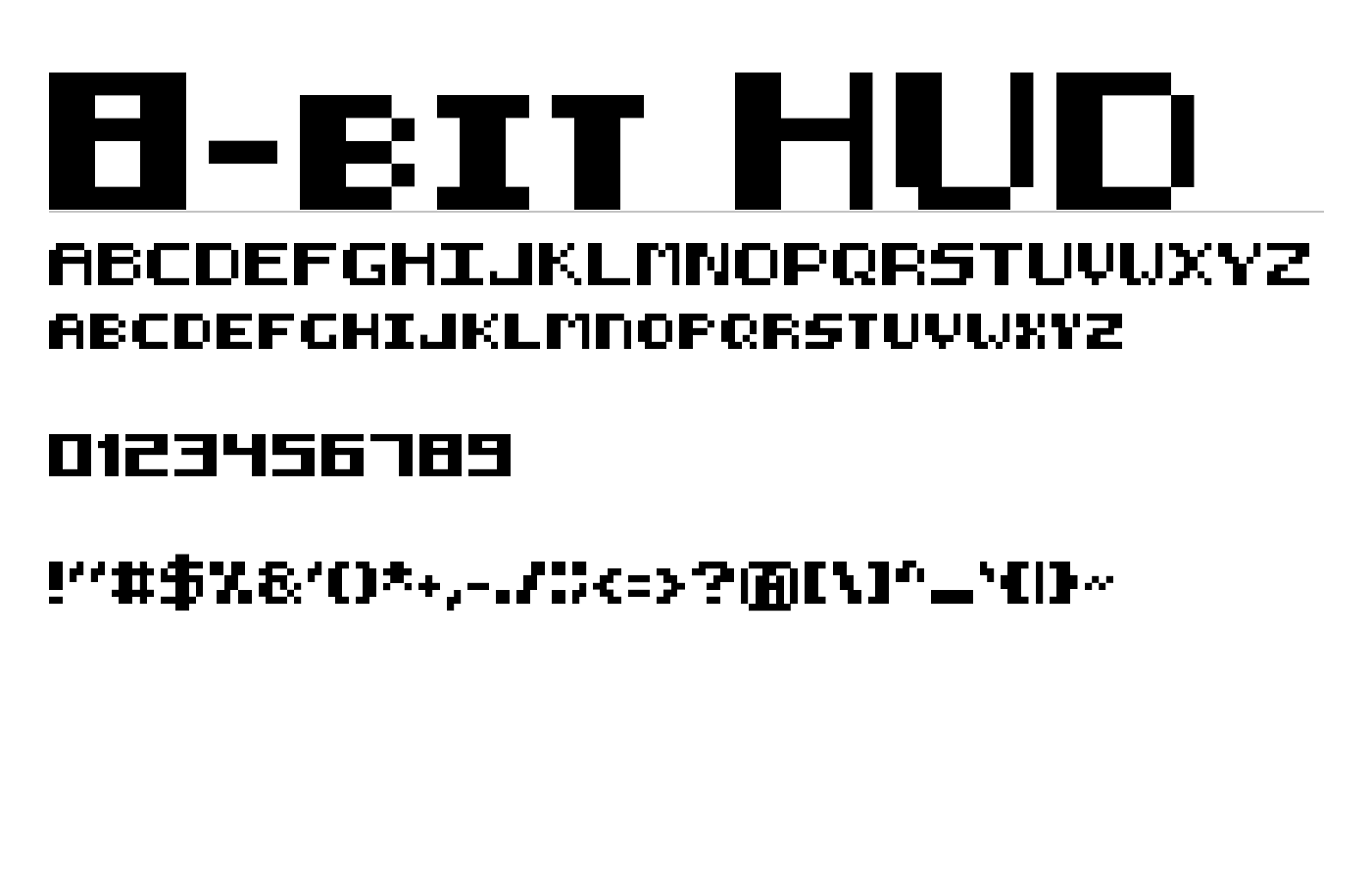
8-bit HUD is a pixelated, monospaced sans serif font that captures the retro digital style of early video game displays and computer interfaces. Its blocky, geometric letterforms with solid, uniform strokes evoke a nostalgic, tech-savvy feel, perfect for projects seeking a vintage arcade or futuristic HUD (heads-up display) aesthetic. This font works well in gaming titles, tech branding, digital art, or any design that aims to highlight a classic 8-bit vibe with clarity and boldness.
8-bit HUD Font
About 8-bit HUD Font